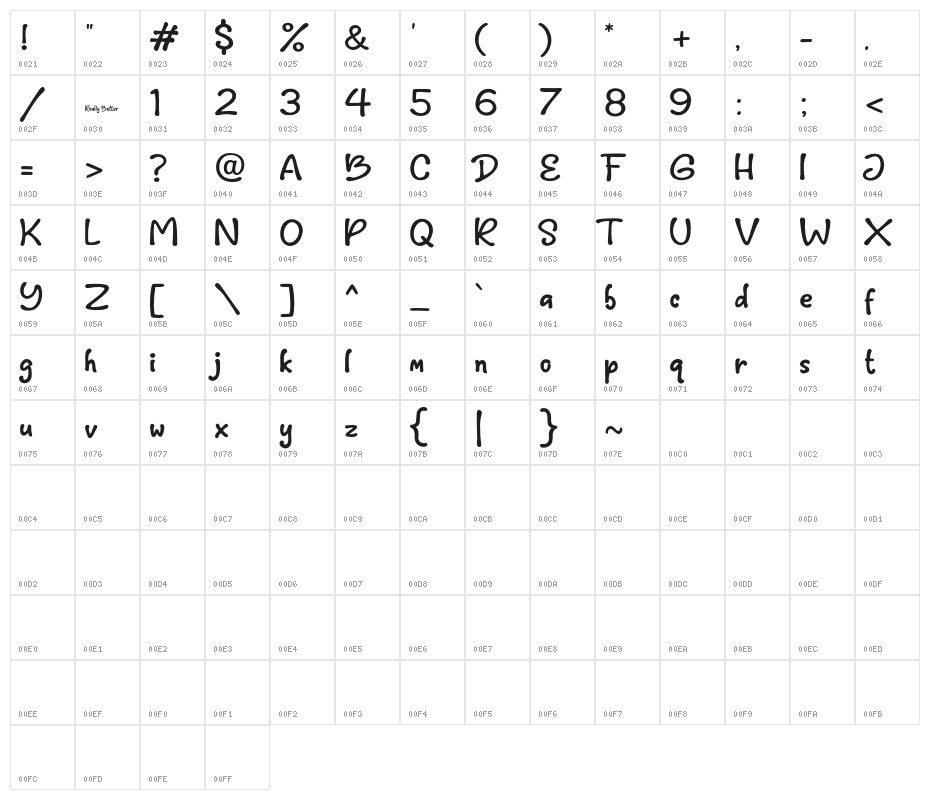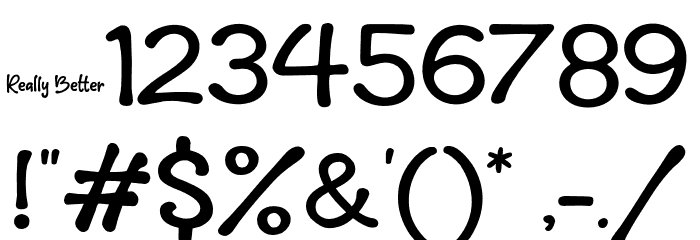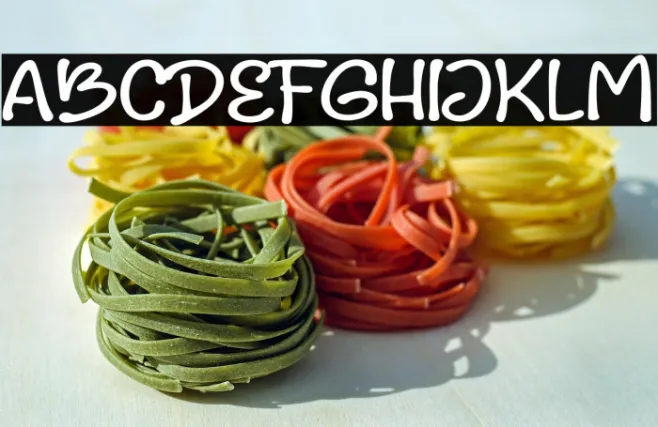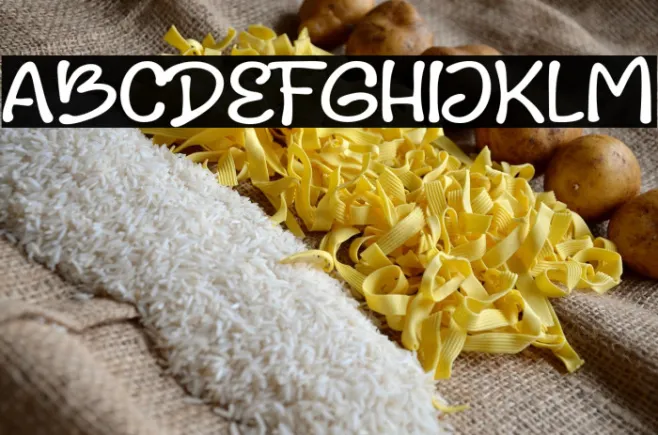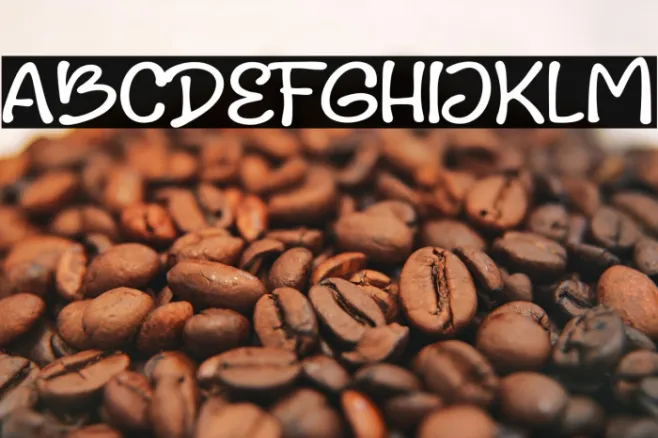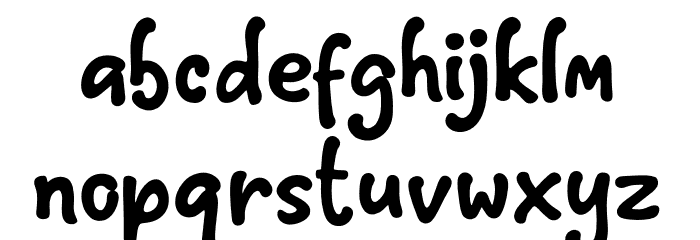
ReallyBetter Font
ReallyBetter Description
This playful and energetic font features bold, rounded characters with a hand-drawn feel. The uppercase letters are slightly larger and more pronounced, while the lowercase letters maintain a consistent flow. The numbers are equally bold and maintain the same playful style, making them easily readable. Special characters are included, adding versatility to the font. The overall design is informal and friendly, making it suitable for projects that require a personal touch.
| Proposed Projects | Ideal for children's books, playful branding, casual invitations, and creative posters. |